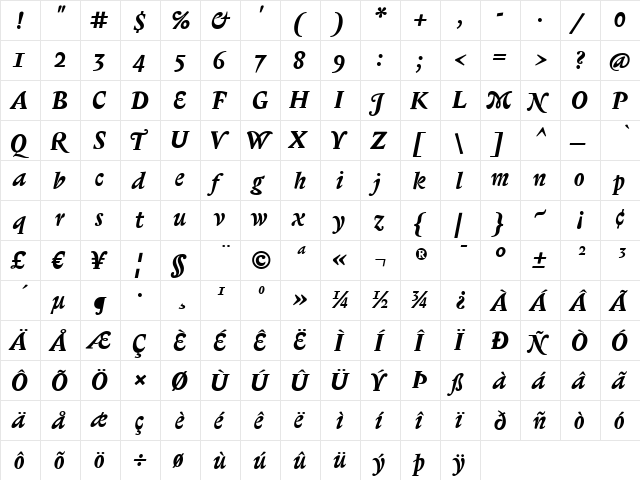
Biblon Bold Italic
Design Context for Biblon Typeface
Biblon is a composed and adaptable typeface that performs quietly and consistently across a wide range of design contexts. The slanted form adds forward momentum and visual energy. Its bold stroke weight gives it real presence on the page.
Pro Tip: Try Biblon for annotation and caption copy alongside an upright companion — the contrast in angle creates a dynamic but ordered typographic system.